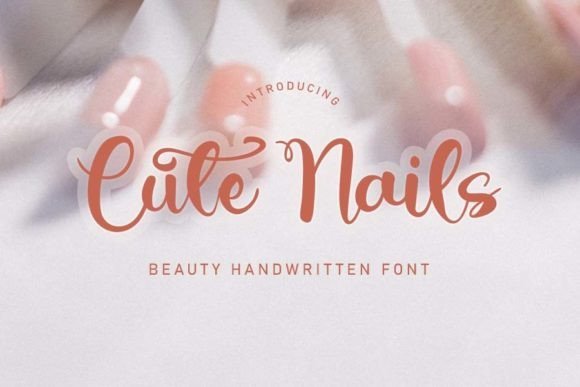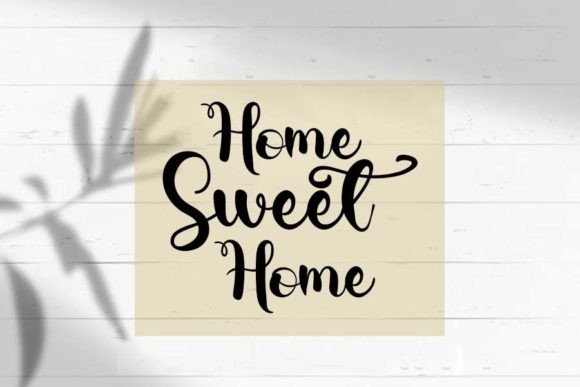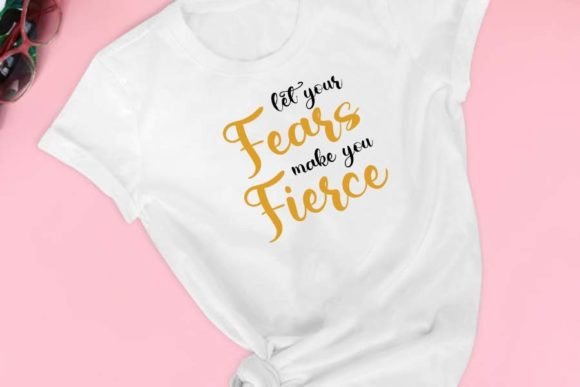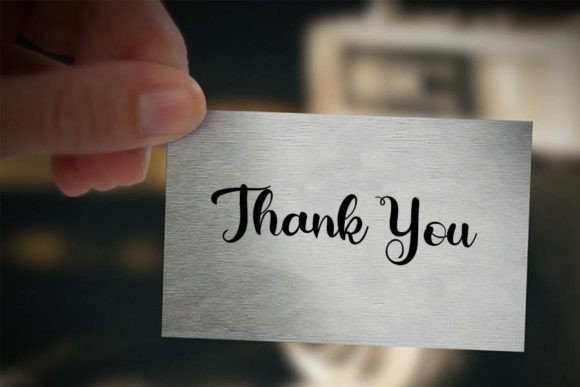
The Perfect Brushstroke for Your Design
Have you ever sat at your desk, staring at a blank page, waiting for that elusive creative spark to strike? It’s a feeling we’ve all been there, and it’s exactly what happened to me the day I discovered the enchanting Cute Nails Font. As a designer, I’m always on the lookout for the perfect font to bring a touch of elegance to my projects.
Cute Nails Font is a beautiful, handwritten font that exudes charm and sophistication. Its unique brushstroke style makes it perfect for a wide range of designs, from wedding invitations to business cards. Whether you’re a seasoned designer or just starting out, this font is sure to add a personal touch to your work.
Cute Nails Font Key Features
- Unique Character Set: Includes a range of cute and playful characters, including nail-themed icons and symbols
Cute Nails Font Review
Overall, I think Cute Nails Font is a cute and playful font, perfect for nail art designs or any other project that requires a touch of femininity. ✨ The font is well-suited for headings or titles, and its whimsical feel can add a lot of personality to your designs.
- ✨ The font’s unique character set, which includes a variety of nail-related icons and symbols.
- ✨ The font’s flexibility, which makes it easy to use in a variety of design contexts.
- ✨ The font’s high-quality rendering, which ensures that the text looks crisp and clear even at small sizes.
- ⚠️ The font is not suitable for formal or professional designs, as its playful feel may come across as immature or unprofessional.
- ⚠️ The font’s character set is limited, which may make it difficult to use for longer blocks of text.
- ⚠️ The font may not be compatible with all operating systems or devices, which could cause rendering issues.
Overall, I think Cute Nails Font is a great choice for designers who want to add a touch of whimsy to their projects. Just be sure to use it in the right context, and don’t be afraid to get creative with its unique features.
Getting the Most Out of Cute Nails Font
For best results, use Cute Nails Font in combination with playful colors and graphics.
Experiment with different font sizes and styles to add visual interest.
Use Cute Nails Font to create eye-catching headings, titles, and captions.
Cute Nails Font is perfect for:
Nail art inspiration boards
Beauty and wellness branding
Food and lifestyle blog posts
Children’s party invitations
Alternatives to Cute Nails Font
Great Vibes is a beautiful, handwritten font that is perfect for creating a fun and playful atmosphere. It is ideal for use in posters, social media graphics, and other promotional materials where you want to add a touch of whimsy.
Compared to Cute Nails Font, Great Vibes has a more fluid and organic feel, making it better suited for projects that require a sense of movement and energy. It also has a wider range of characters and symbols, making it more versatile.
Alex Brush is a elegant and refined font that is perfect for creating a sophisticated and high-end look. It is ideal for use in wedding invitations, luxury brand materials, and other projects where you want to convey a sense of luxury and sophistication.
Compared to Cute Nails Font, Alex Brush has a more formal and polished feel, making it better suited for projects that require a sense of elegance and refinement. It also has a more limited range of characters and symbols, making it more suitable for formal and professional use.